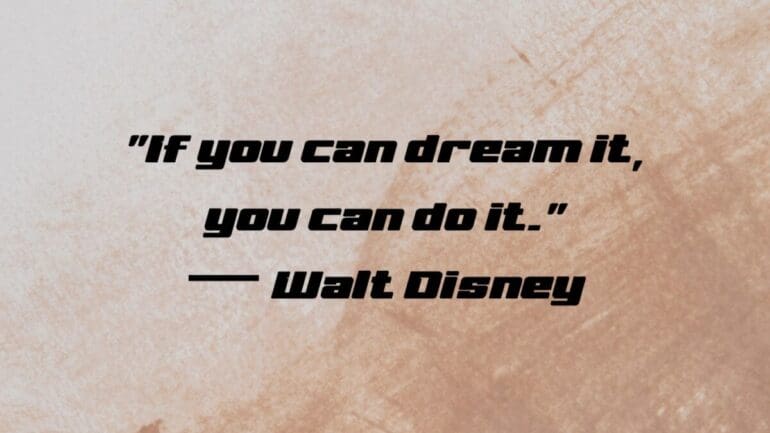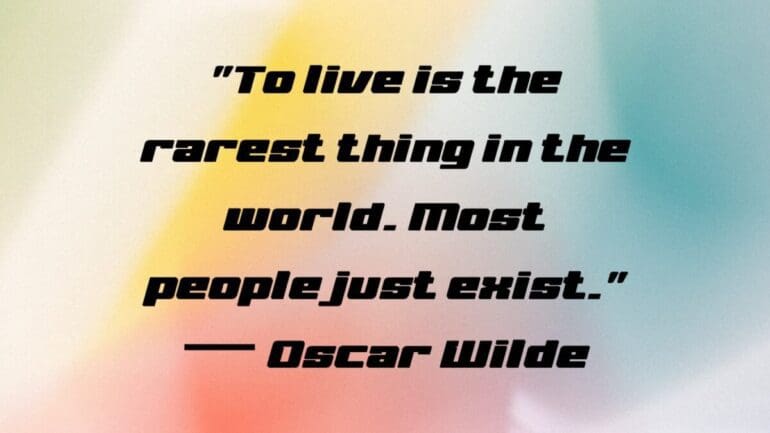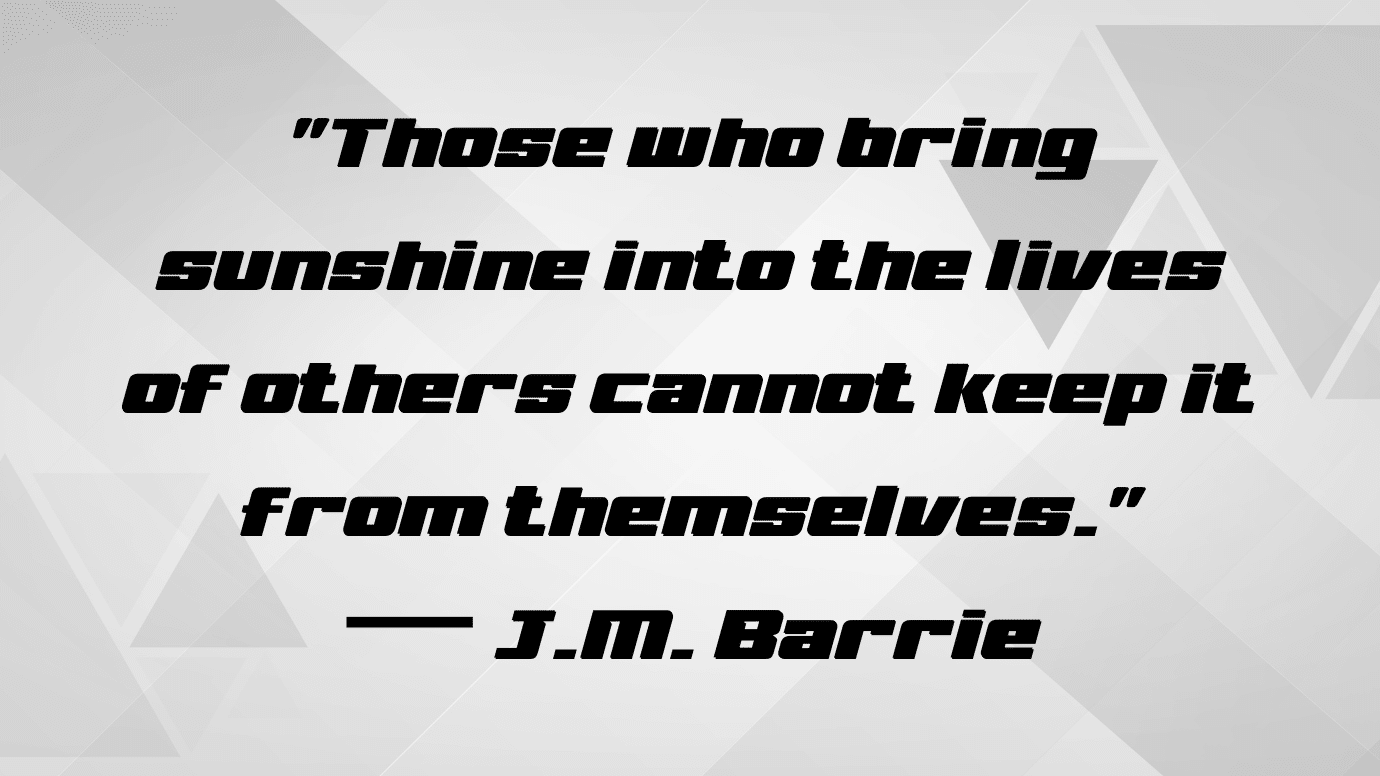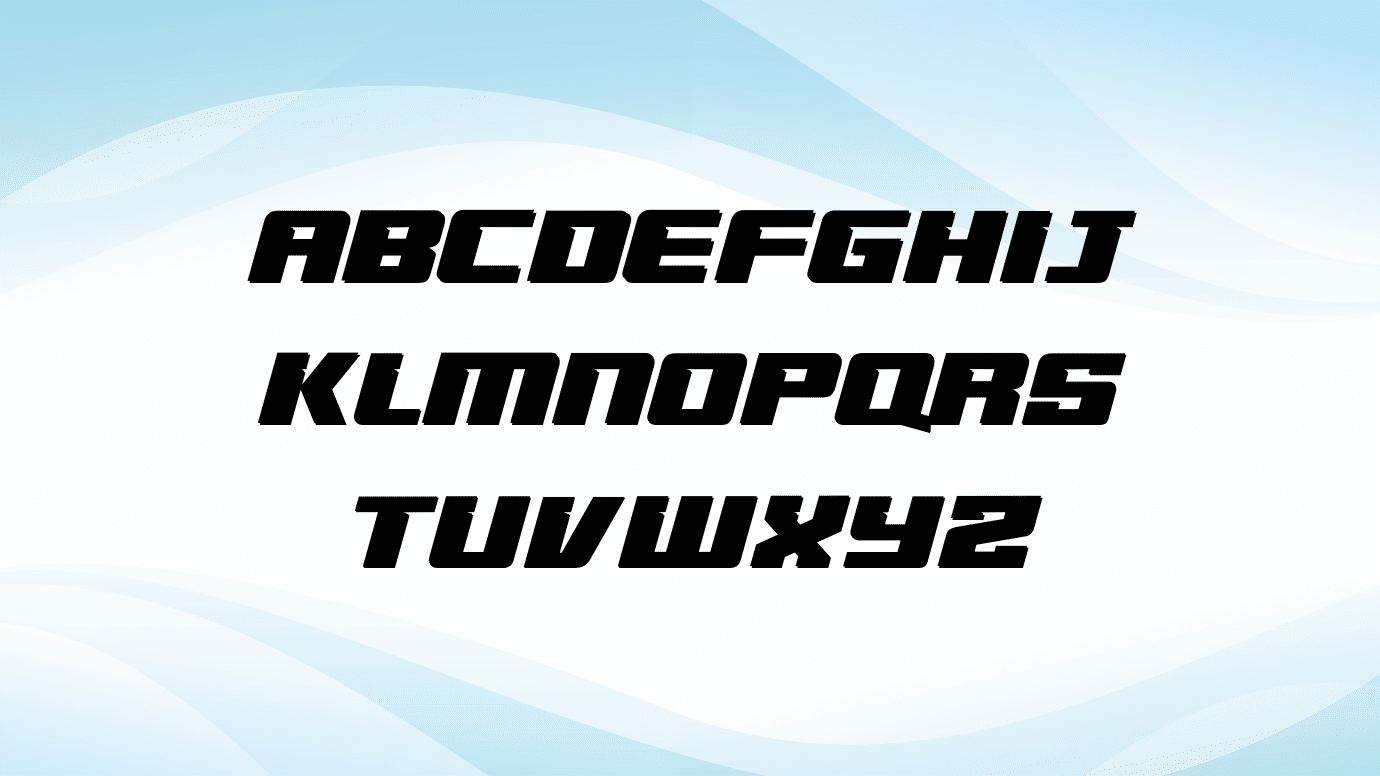
VelvetQuilt Display Font
Representing you a new typeface that contains a comprehensive and bold texture with eye-catching visuals known as VelvetQuilt Display Font. Font forestry is the designer of this pretty stylish typeface.
The font file contains True type outlines with both Uppercase and lowercase letters, it also has numbers and some mandatory punctuations and symbols. It is great for your heading and some eye-catching quotes and summaries.